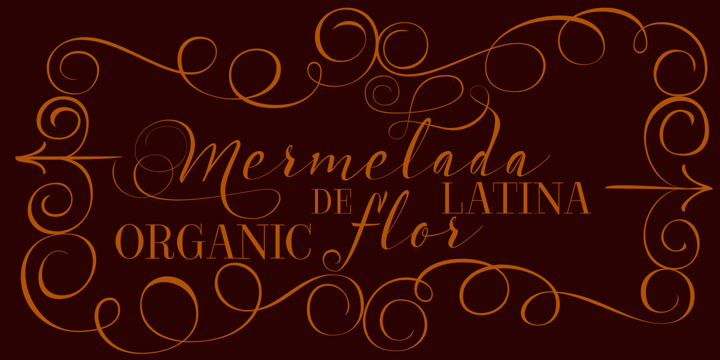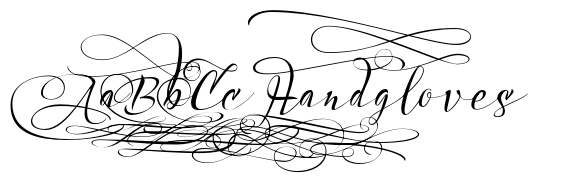
Acustica
Acustica by Andinistas
Acustica Font Family was designed by Carlos Fabián Camargo Guerrero and published by Andinistas. Acustica contains 6 styles and family package options. More about this family
About Acustica Font Family
Acústica is a display font family designed by Carlos Fabian Camargo G. Its styles were designed to form words and phrases related to delicate and feminine contexts. Acústica Caps, Italic, Swashes and Ornaments are drawn investigations with flexible tip pen inspired by Didot capitals. All ideal for mixing with Acústica Script whose idea represents the volatile sound of a fine tip brush against rapid tracing paper. Its script path in width condensed lowercase and uppercase letters in loose horizontal proportions are generous between letters laced with long, agile and thin connecting strokes. Its script sensitivity is in Italian calligraphy with uninterrupted lines of cursive English. Acústica was selected at the Bienal Tipos Latinos 2014. Photos by http://www.desdeesteladodemimundo.blogspot.com